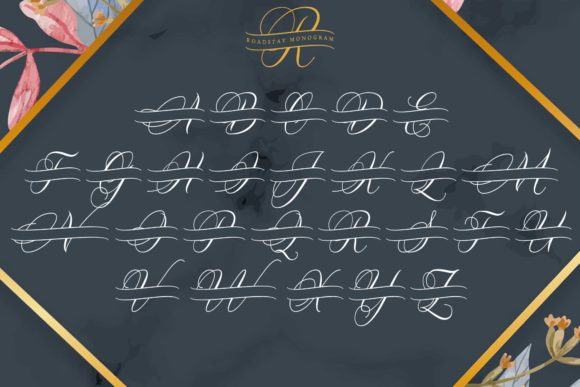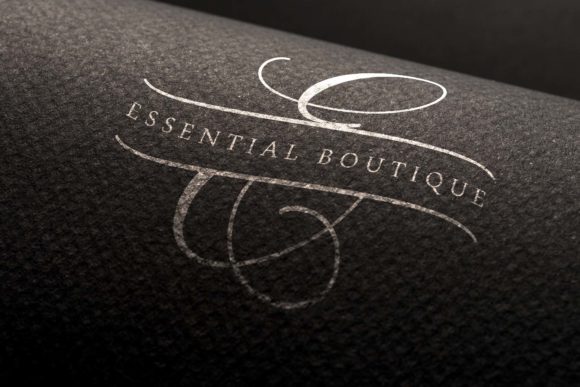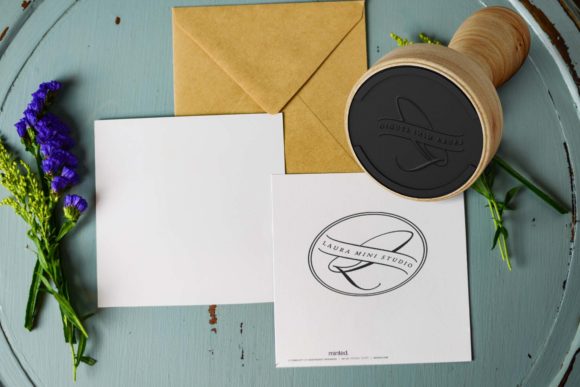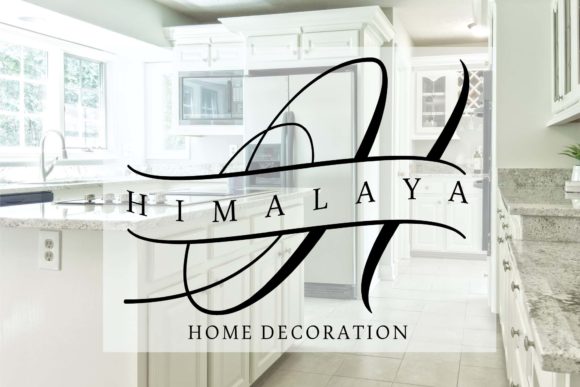
Introduction to Roadstay Font
Have you ever been in the middle of a creative project, surrounded by endless possibilities, and then – BAM! – you stumble upon the perfect font that elevates your entire design to the next level? That’s exactly what happened to many designers when they discovered the stunning Roadstay Font. This elegant monogram script font has been a game-changer for creatives, offering a unique blend of classic style and friendly feel that’s hard to resist.
Whether you’re working on a wedding invitation, a social media post, or a greeting card, the Roadstay Font is an invaluable resource that can take your design to new heights. Its high-quality design and transparent background make it perfect for any creative project, and the best part? It’s available for free download, making it an accessible and valuable asset for designers of all levels.
- High-quality design resource ideal for creative projects, offering a professional look and feel.
- Unique, modern aesthetic that can add a touch of sophistication to any creative project.
Honest Review: Roadstay Font
As a designer, I’m always on the lookout for high-quality design resources to elevate my creative projects. Recently, I came across the Roadstay Font, and I’m excited to share my honest review.
- The font has a sleek and modern design that’s perfect for a variety of projects, from logos to headings.
- The transparent background makes it easy to layer over images or other design elements.
- The font may not be suitable for projects that require a more traditional or vintage look.
- The character set is limited, so it may not be ideal for projects that require a wide range of characters.
Overall, I’m impressed with the Roadstay Font. Its modern design and transparent background make it a versatile and useful resource for designers. While it may have some limitations, it’s a great addition to any design toolkit. With its high-quality design and free download, I’d definitely recommend it to fellow designers.
For optimal results, use the Roadstay Font in combination with a clear and simple design. Experiment with different font sizes and colors to create a visually appealing design.
Common Use Cases for Roadstay Font
The Roadstay Font is ideal for creating headings, titles, and captions for creative projects such as brochures, flyers, and social media graphics.